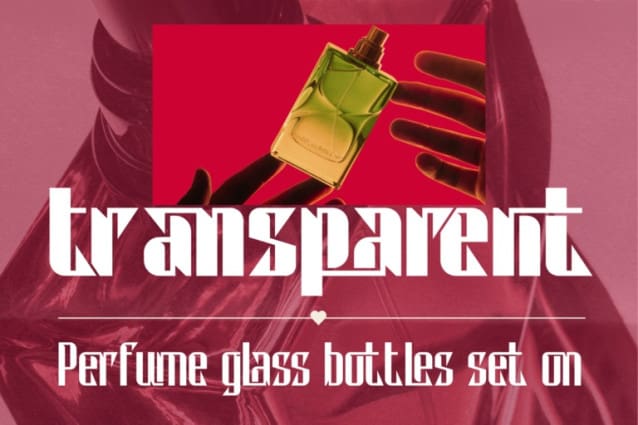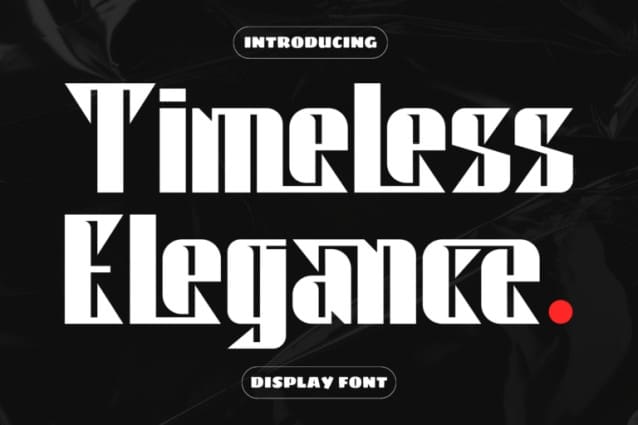
Timeless Elegance Font
Timeless Elegance Font is a striking condensed sans serif font that seamlessly blends modern design with a touch of artistic flair. font inspired by vintage minimalist style typography. Its thick, impactful characters create a professional and luxurious feel, making it perfect for eye-catching designs, from branding to posters, headlines, and logos.
Timeless Elegance was built with OpenType features and includes 100 ligatures, alternate, numbers, punctuation, and it also supports other languages.